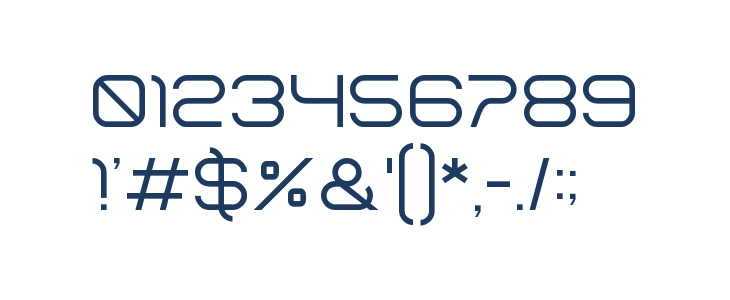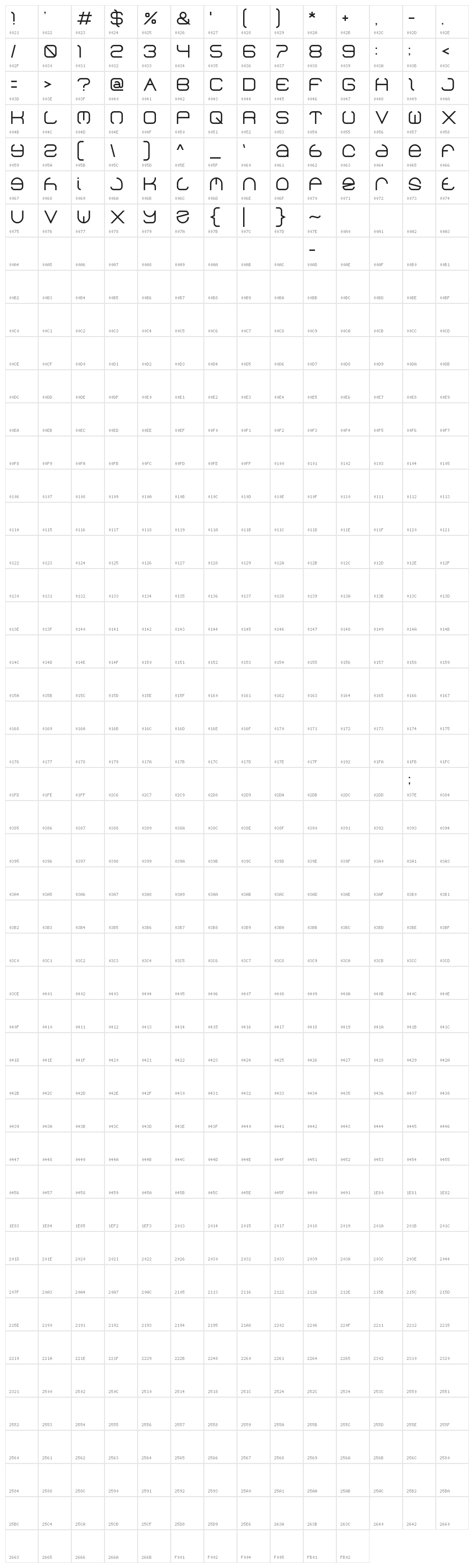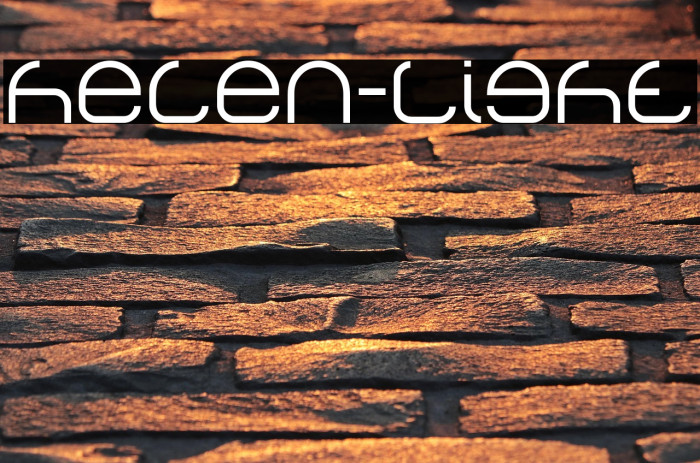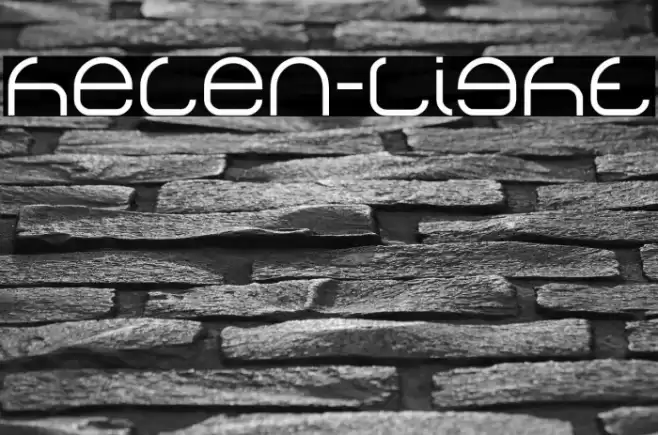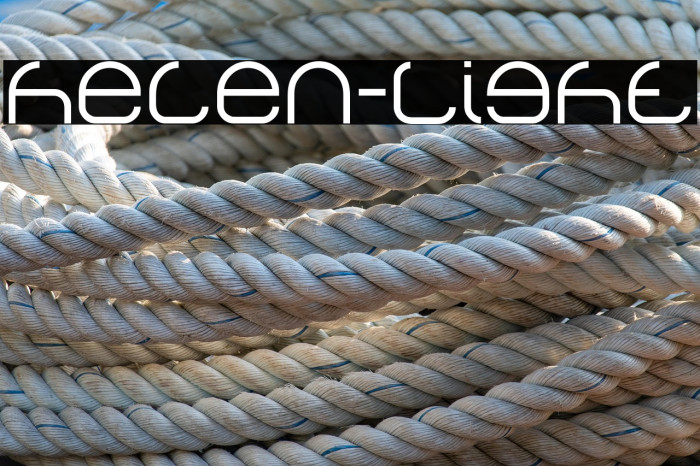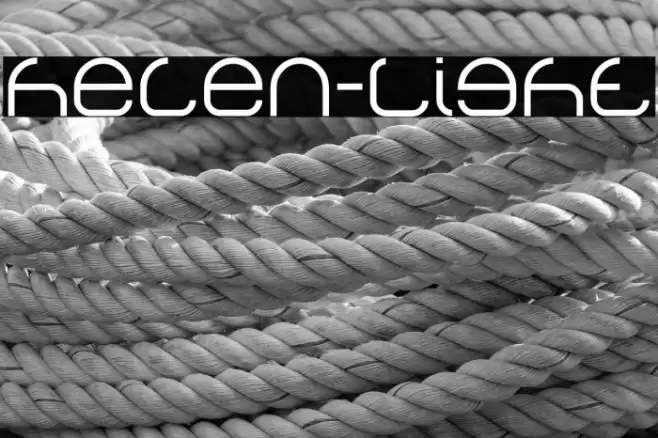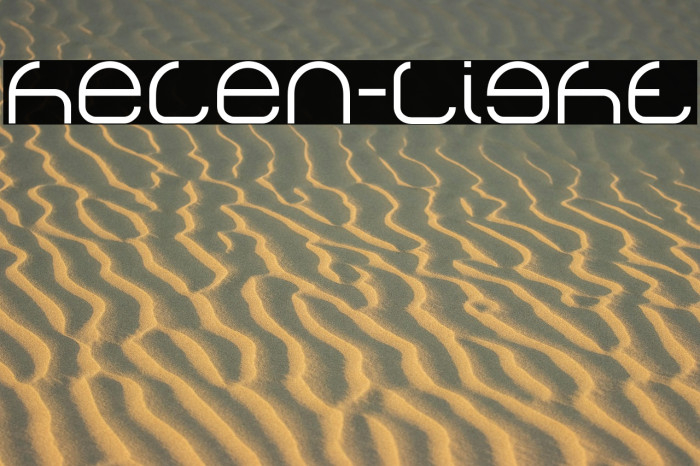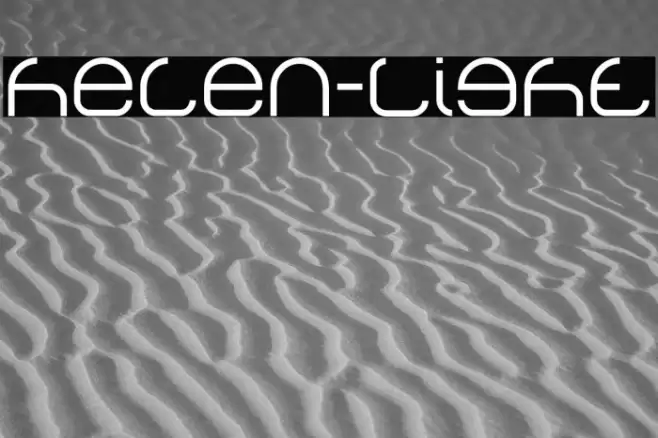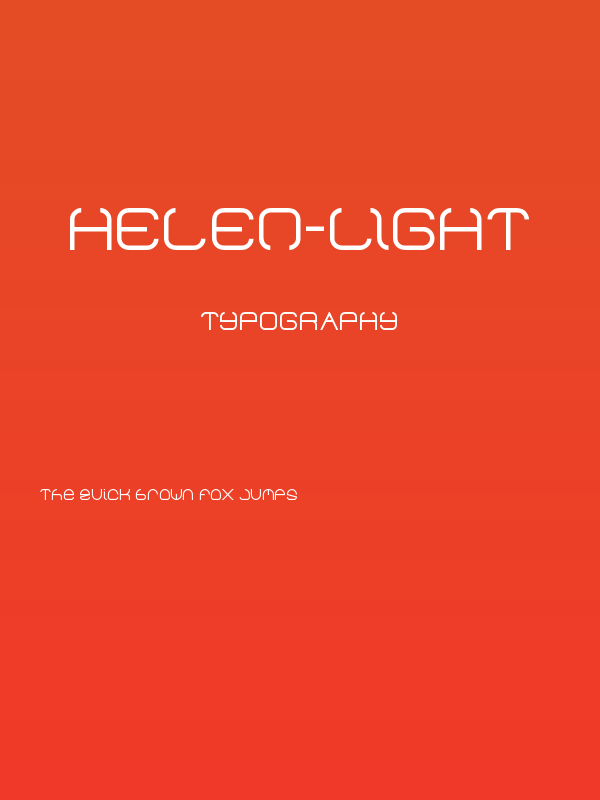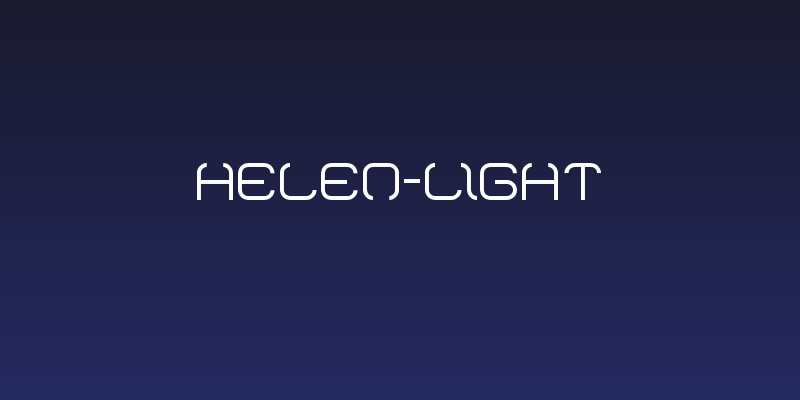
helen-Light Font
helen-Light Description
This font features a modern, geometric design with a futuristic flair. The characters are composed of clean, rounded lines and open forms, creating a sense of minimalism and elegance. The uppercase and lowercase letters maintain a consistent style, with a focus on symmetry and balance. The numerals and special characters follow the same design principles, ensuring uniformity across all glyphs. The overall appearance is sleek and contemporary, making it suitable for a variety of design applications.
| Use Case | Logos, Headlines, Digital interfaces |
| Proposed Projects | Ideal for tech branding, modern advertising, digital interfaces, and futuristic-themed projects. |